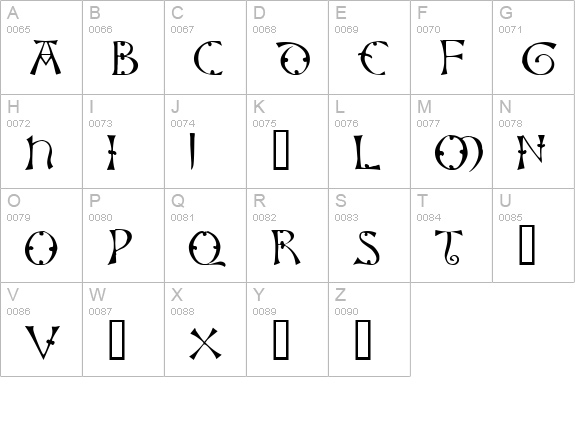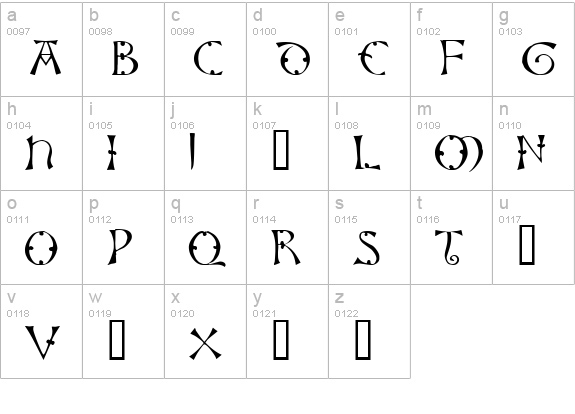
Lisbjerg Font Details
Lisbjerg font is a beautiful and versatile typeface that exudes elegance and sophistication. With its sleek lines and modern flair, Lisbjerg is perfect for a wide range of design projects, from branding to editorial layouts. This free font offers a unique blend of classic and contemporary styles, making it a timeless addition to any designer's toolkit. Available for free download at FontsMarket.com, Lisbjerg font is easily accessible to all designers looking to elevate their work with a touch of class. Its clean and legible design ensures readability across various applications, while its subtle details add a touch of finesse to any project. Whether you're working on a logo, website, or print materials, Lisbjerg font is sure to make a lasting impression with its timeless appeal.